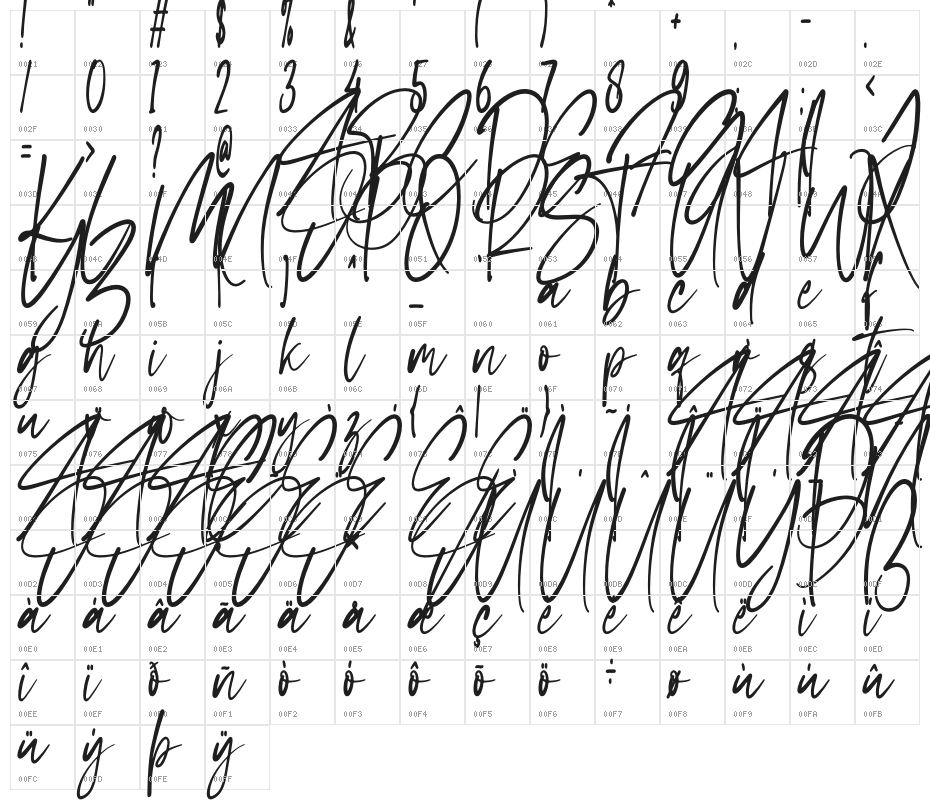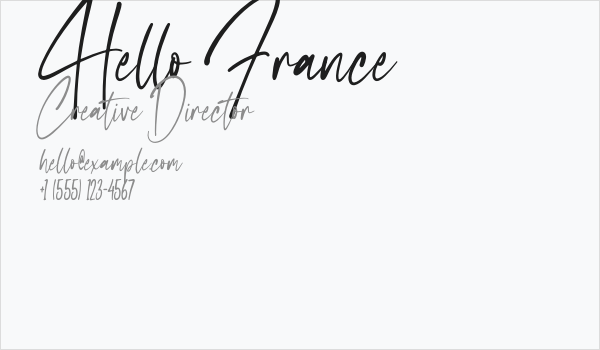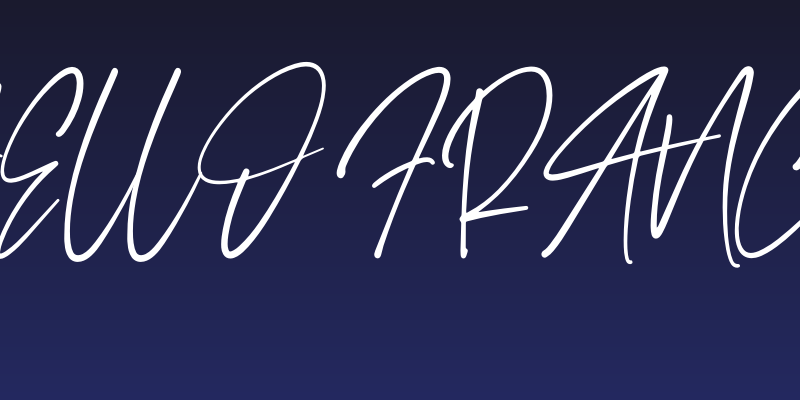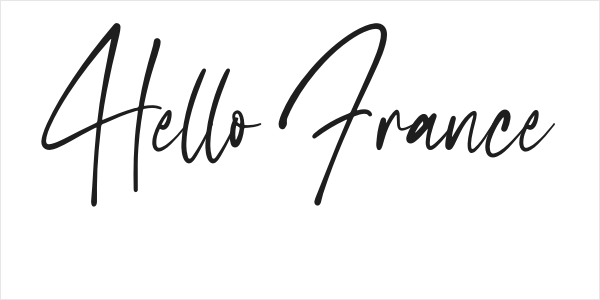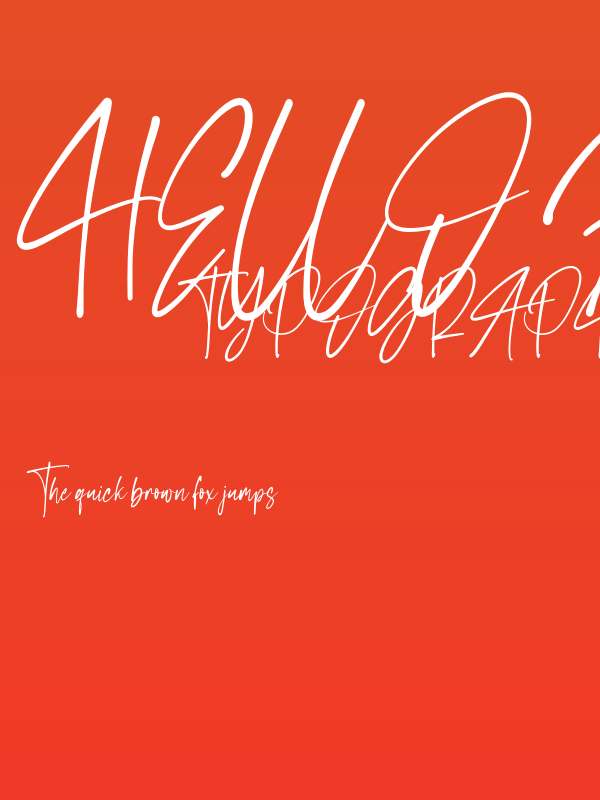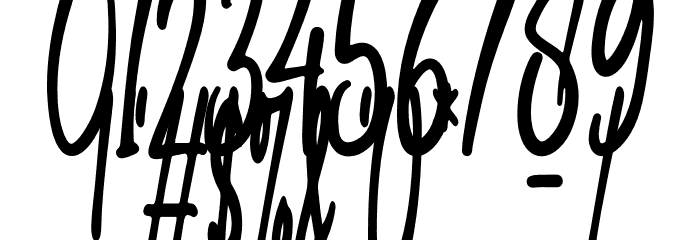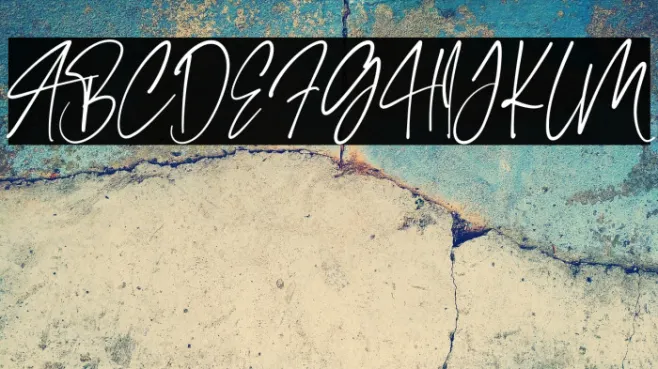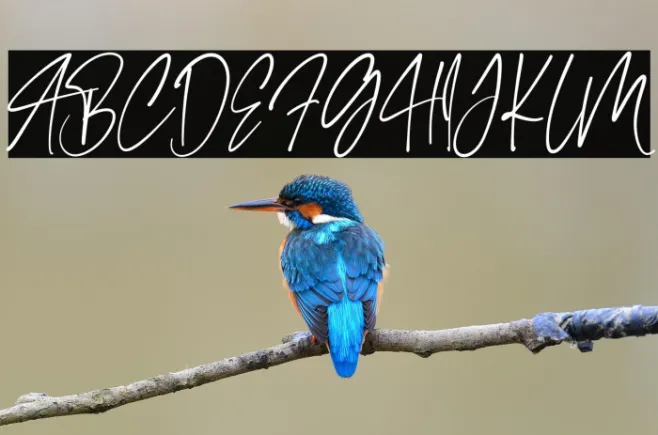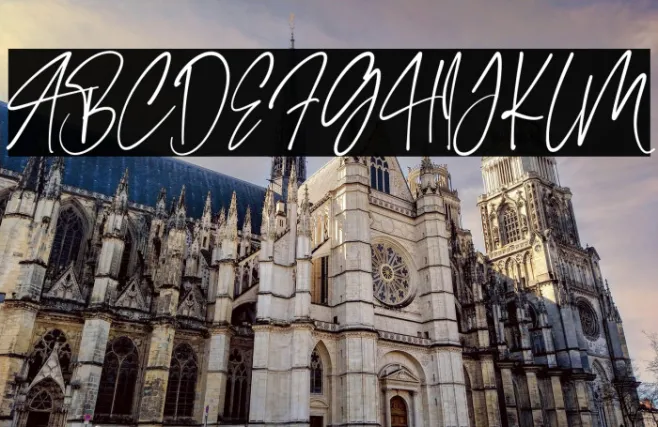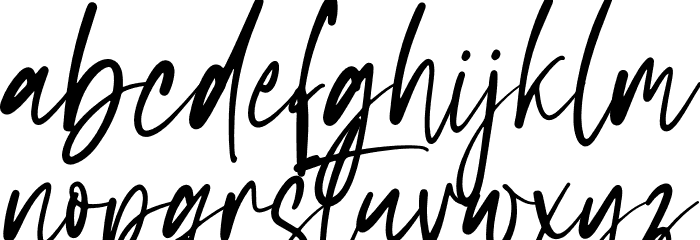
Hello France Font
Hello France Description
This font exudes a modern, handwritten style with a casual and fluid appearance. The uppercase letters are tall and slightly narrow, with a consistent slant that gives a sense of movement and elegance. The lowercase letters maintain a cohesive flow, enhancing readability while preserving the handwritten charm. Numbers are bold and distinct, ensuring clarity. Special characters blend seamlessly with the overall style, making this font versatile for various applications. The strokes are smooth and continuous, contributing to a dynamic and lively aesthetic.
| Proposed Projects | Ideal for personal branding, invitations, greeting cards, and social media graphics. |